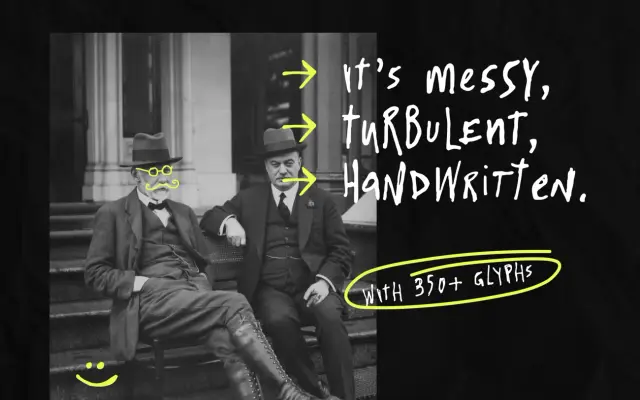
Wasted Year
A messy handwriting script that unpredictably alternates between uppercase and lowercase letterforms depending on letter combinations entered.
The defining feature of this font is its contextual case-switching: rather than a fixed upper or lowercase, the letterforms change according to the surrounding characters, producing an authentically erratic handwritten feel. This makes each string of text feel genuinely spontaneous rather than mechanically repeated. Suited to informal branding, social content or any setting where a raw, unstudied hand is called for.
A casual, messy handwriting script with an unpredictable mix of uppercase and lowercase letterforms, placing it firmly in the informal script category.